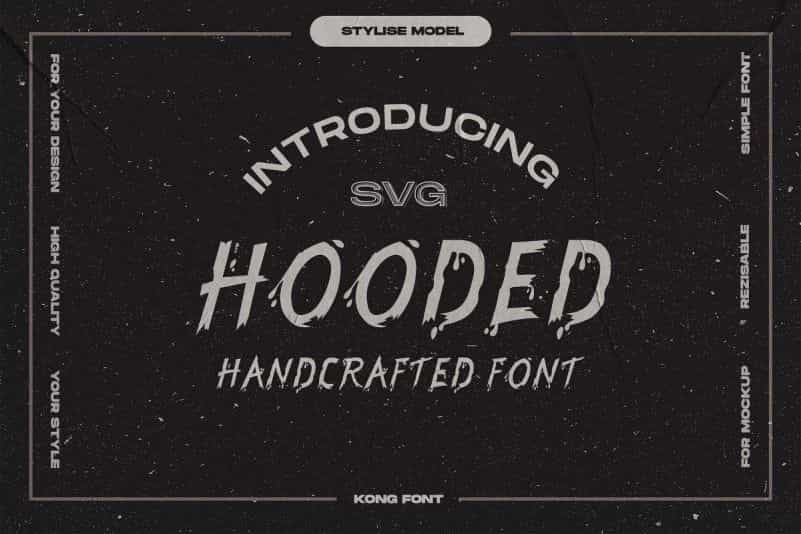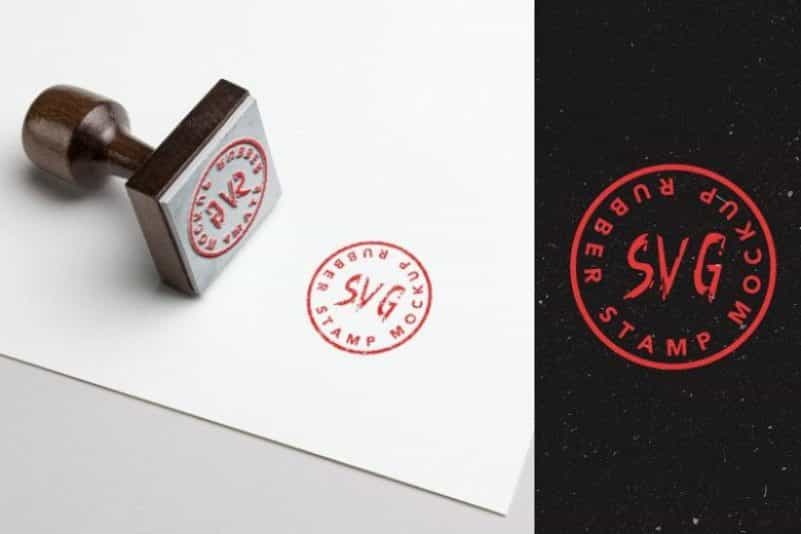
Discover Hooded Brush Font, part of the Brush Serif collection—a versatile and unique font perfect for adding a personal touch to your projects. Download it for free and enjoy crafting designs with style, from invitations to social media posts. This font is available exclusively for personal use, giving you the freedom to create without limits. Unlock your creativity with Hooded Brush Font today!
Hooded brush font with new style, this font will perfect for many different project ex: Quotes, logo, blog header, poster, banding fashion apparel letter invitation stationery and so on.